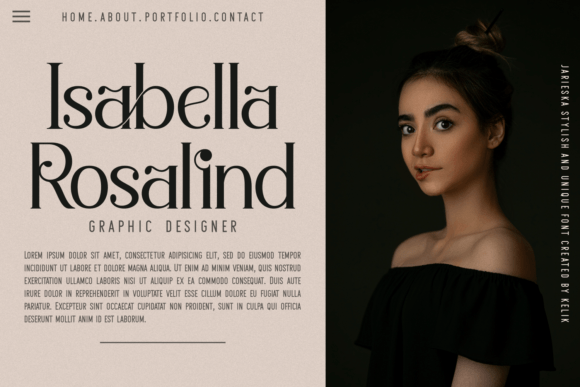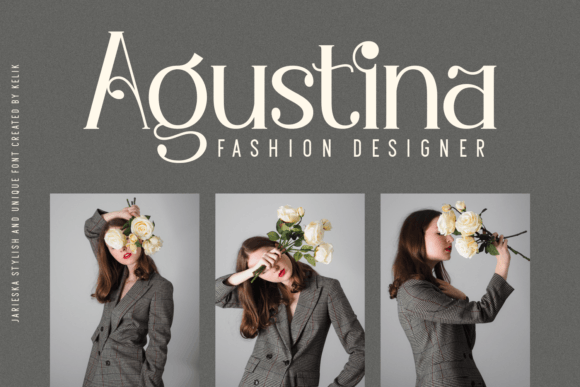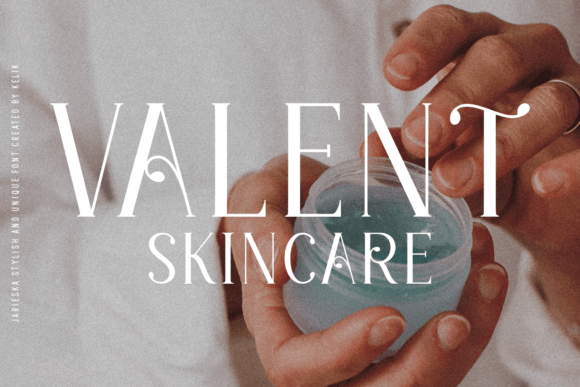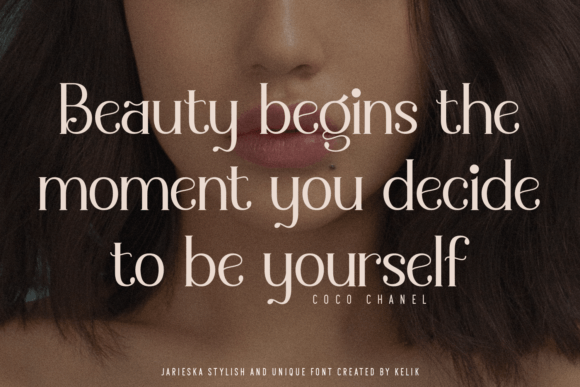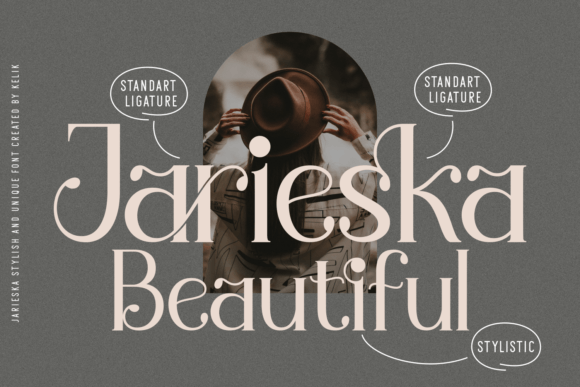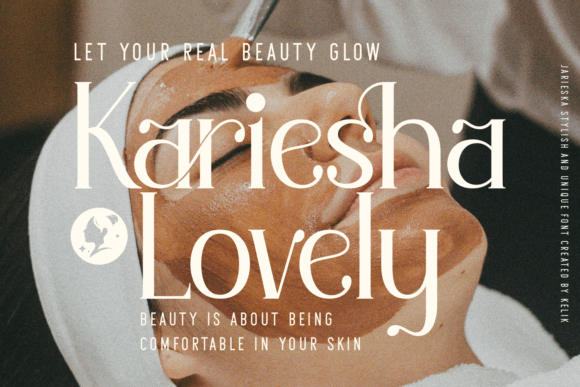
Introduction to Jarieska Font
Jarieska is a chic and sophisticated serif font that exudes elegance and refinement.
Its slim and delicate characters have a timeless quality, with thin and precise strokes that convey precision and attention to detail The letters have a subtle slant and a graceful curve, giving it a sense of fluidity and movement.